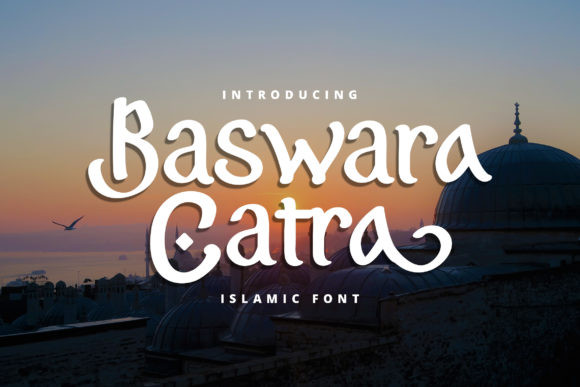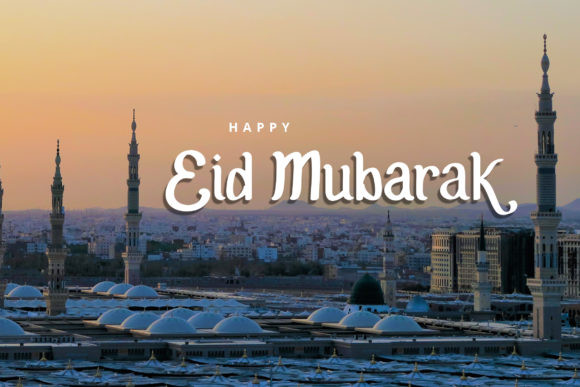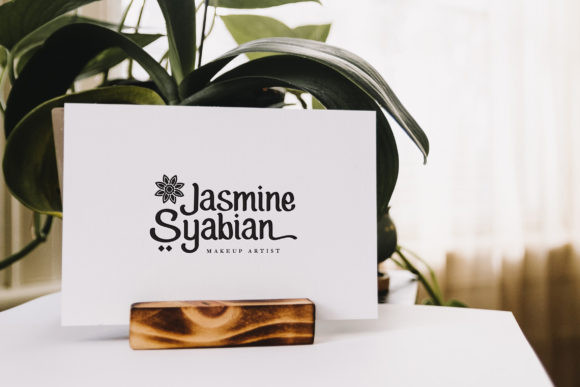
Baswara Catra Font
Baswara Catra is a flowing and unique handwritten font. Fall in love with its incredibly versatile style and use it to create gorgeous wedding invitations, beautiful stationary art, eye-catching social media posts, and much more!